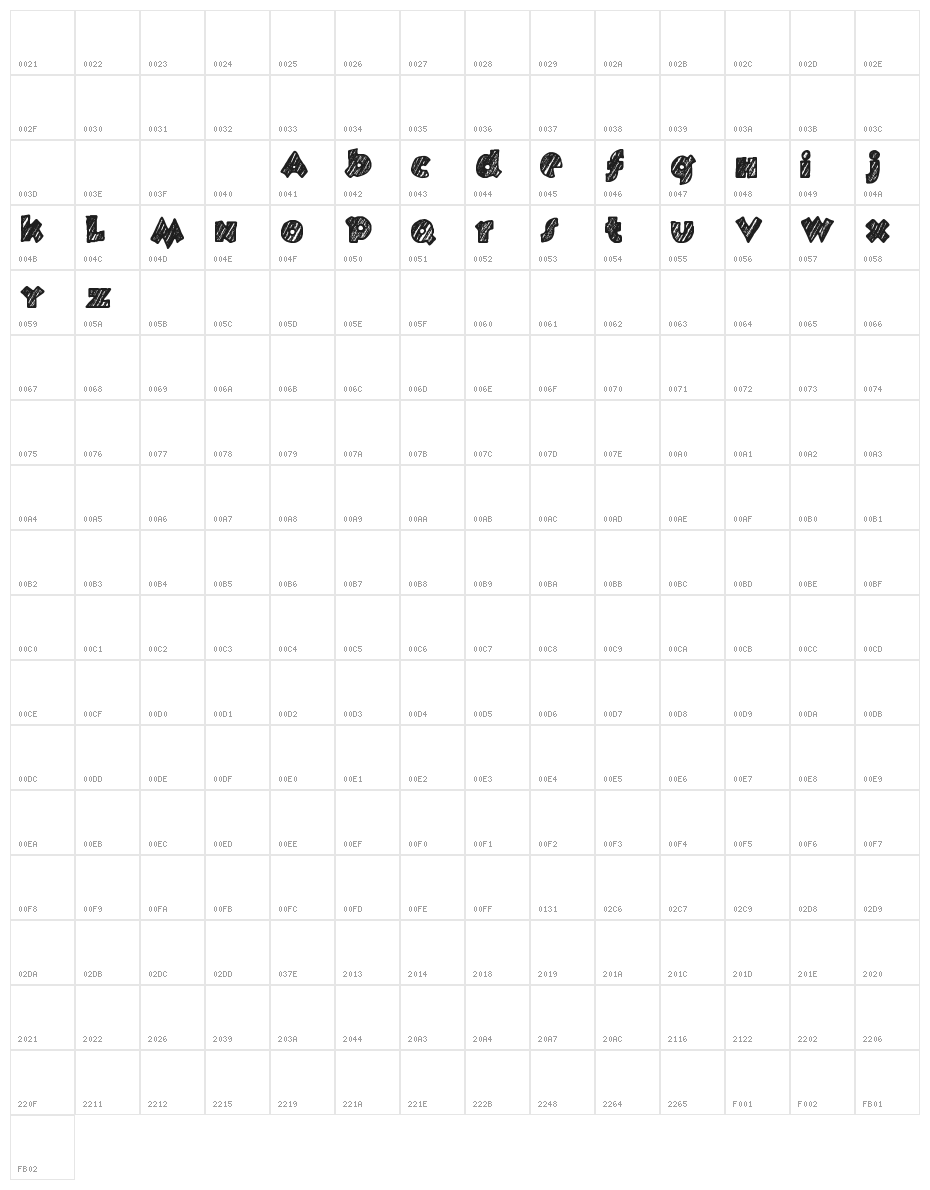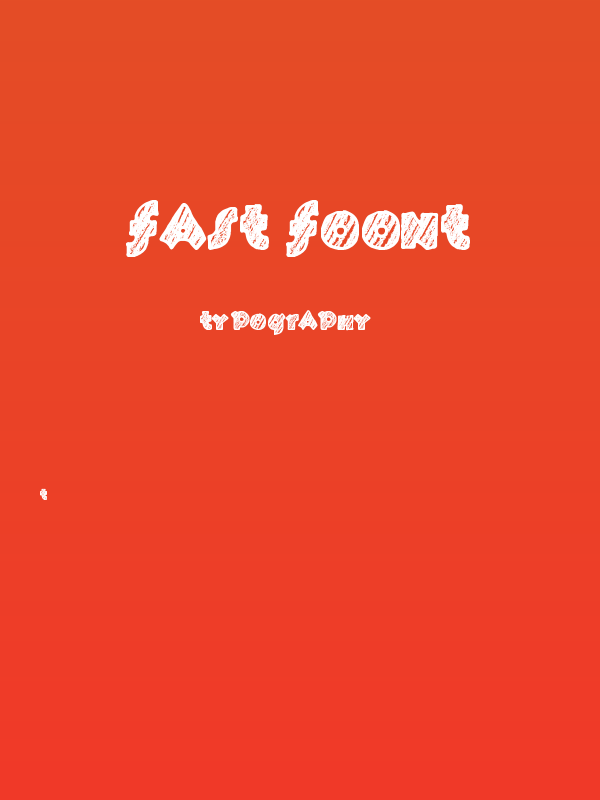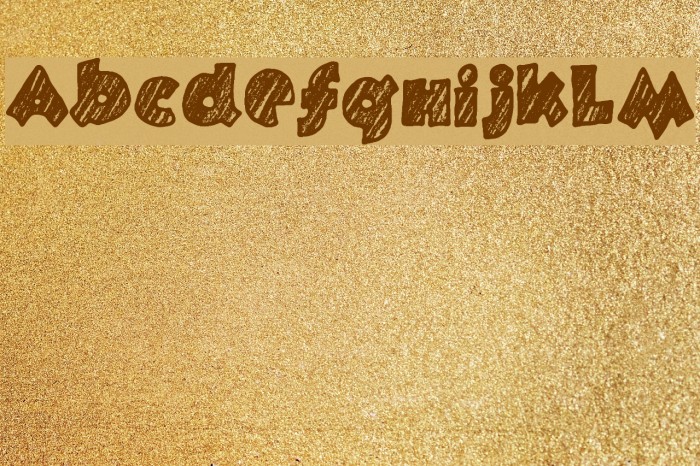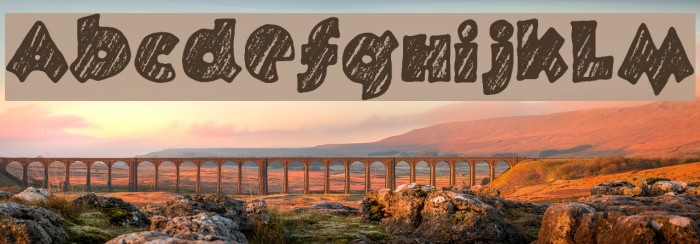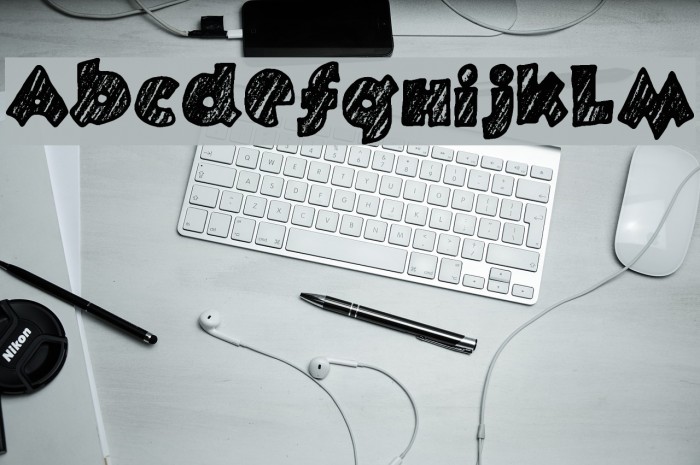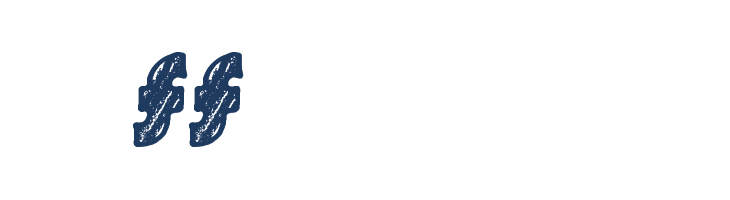
Fast Foont Font
Fast Foont Description
This font features a playful and bold design with a hand-drawn, sketch-like appearance. Each character is filled with a textured pattern that resembles scribbles or chalkboard art, giving it a unique and artistic flair. The letters are slightly irregular, adding to the casual and informal style. This font is highly decorative, making it ideal for creative projects that require a fun and engaging look. The uppercase and lowercase letters maintain a consistent style, with a strong emphasis on individuality and creativity. The overall design is eye-catching and perfect for drawing attention.
| Overall Style | Playful, Artistic, Creative |
| Proposed Projects | Ideal for children's book covers, playful posters, creative branding, and artistic invitations. |